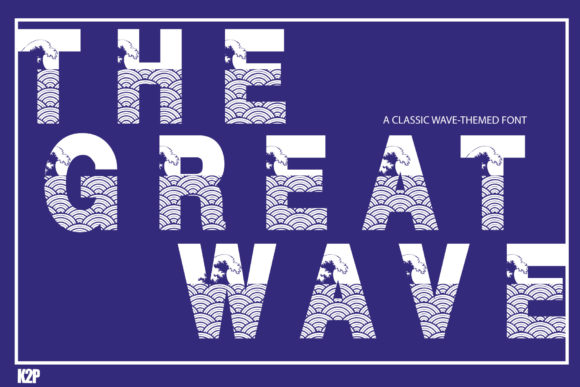
Introducing "The Great Wave" – The Ultimate Font for Unleashing Your Creative Spirit.
Dive into the world of captivating typography with "The Great Wave," the extraordinary decorative font that will leave you spellbound. Designed by the talented KtwoP, this masterpiece is an ode to creativity, perfectly capturing the essence of free-spirited expression. Prepare to embark on an artistic journey where your imagination runs wild and words come alive.
"The Great Wave" is not just a font; it's an experience. It's a dance of lines and curves, a symphony of strokes and flourishes that will transform your designs into breathtaking works of art. With its bold and playful personality, this font is ideal for adding an extra splash of charm to product packaging, branding projects, magazine covers, social media posts, wedding invitations – the possibilities are endless.
As you explore the nuances of "The Great Wave," you'll discover a font that's as versatile as it is captivating. It effortlessly adapts to any style or theme, adding a touch of sophistication and uniqueness to your projects. Whether you're looking to create eye-catching headlines, stunning logos, or simply enhance the visual appeal of your content, "The Great Wave" has got you covered.
With "The Great Wave" at your fingertips, you'll never have to settle for ordinary typography again. This font is your gateway to a world of limitless creativity, inviting you to break free from the mundane and embrace the extraordinary. Its bold strokes and playful curves will ignite your imagination, inspiring you to create designs that leave a lasting impression.
So, if you're ready to elevate your design game and make a statement with your typography, "The Great Wave" is the perfect choice for you. Dive into the depths of its creative potential and unlock the power of truly captivating communication. Unleash the artist within and let your words dance across the page with an elegance and flair that's impossible to ignore. "The Great Wave" awaits you – seize the moment and make your creative dreams a reality.